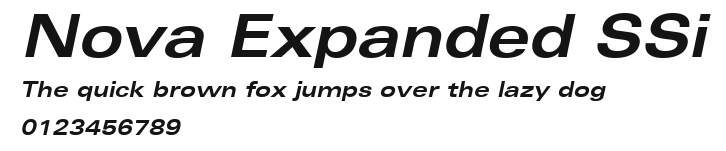
• Font Name: Nova Expanded SSi
• Font Style: Bold Expanded Italic
About Nova Expanded SSi.ttf
Nova Expanded SSi.ttf is a modern, elegant sans-serif font designed for ultimate readability and visual harmony. Perfect for branding, headlines, web design, and print materials.